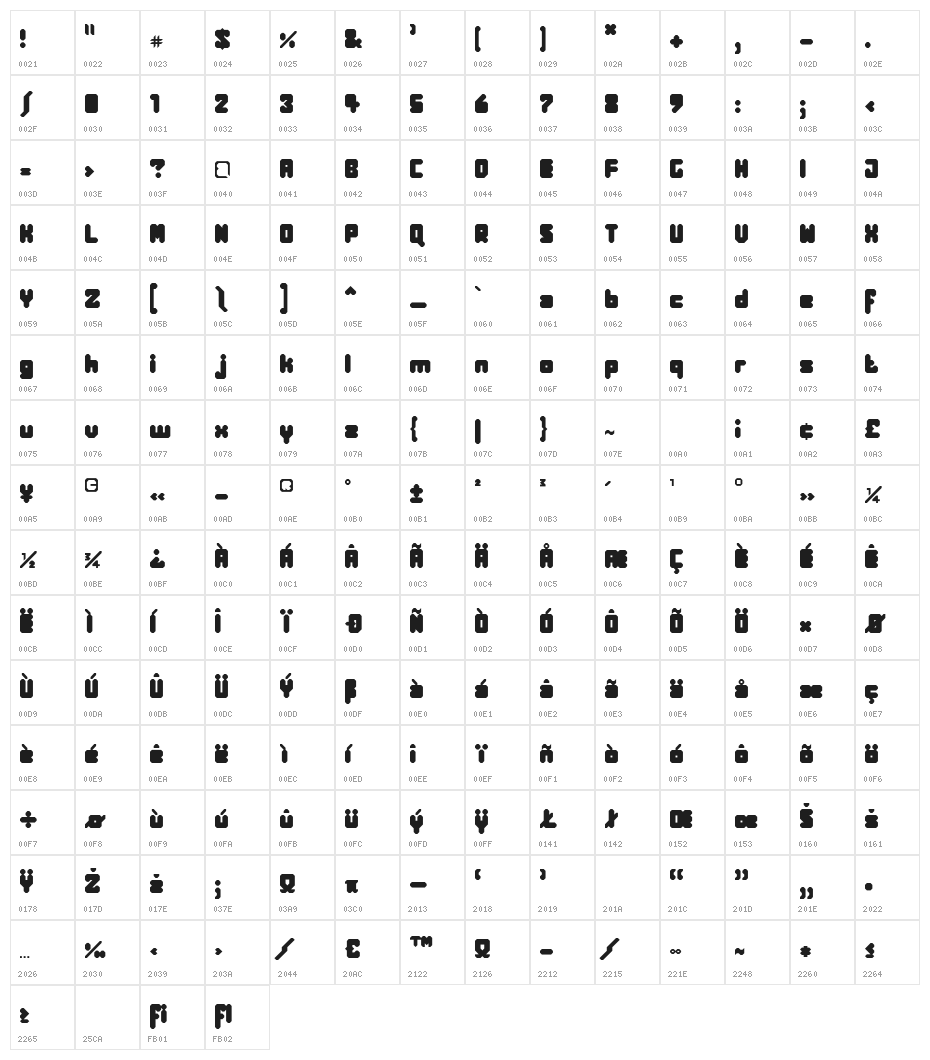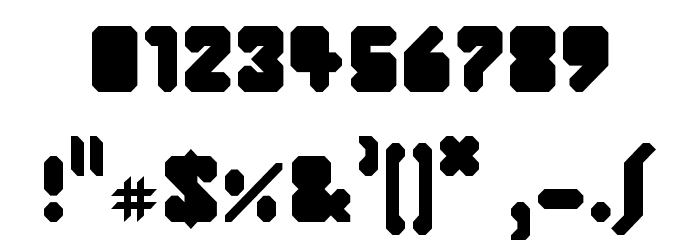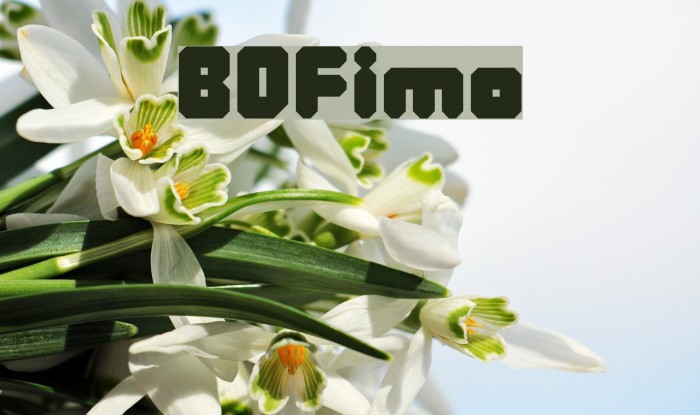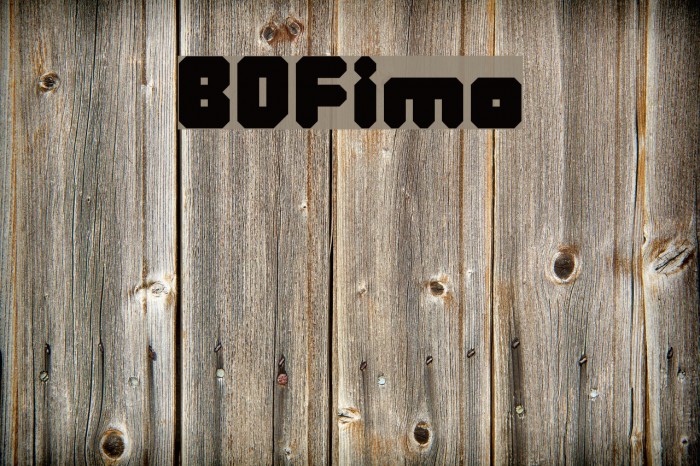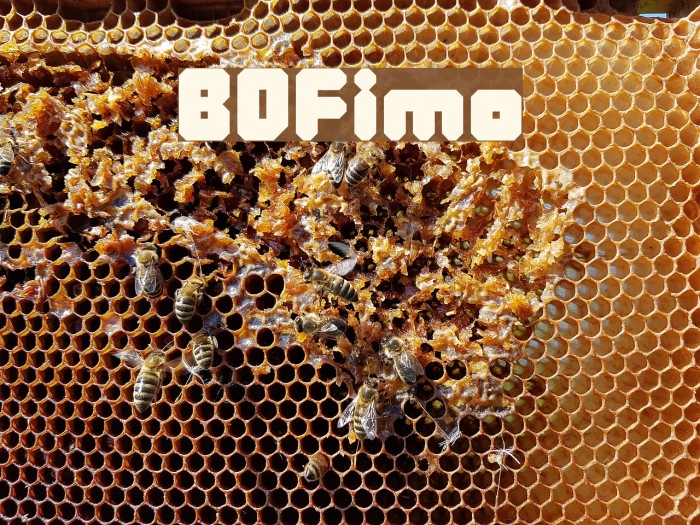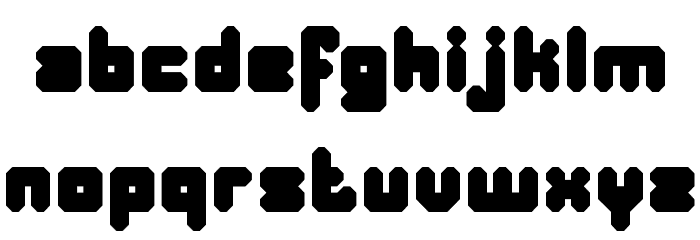
BDFimo Font
BDFimo Description
This font features a bold, geometric design with a distinctly modern and futuristic aesthetic. The characters are constructed with thick, blocky shapes that create a strong visual impact. Each letter and number is crafted with angular edges and uniform thickness, giving the font a cohesive and structured appearance. The uppercase and lowercase letters maintain a consistent style, while the numerals and special characters complement the overall design. This font's unique style makes it ideal for projects that require a bold and eye-catching typeface.
| Proposed Projects | Ideal for branding, posters, video game graphics, and sci-fi themed projects. |